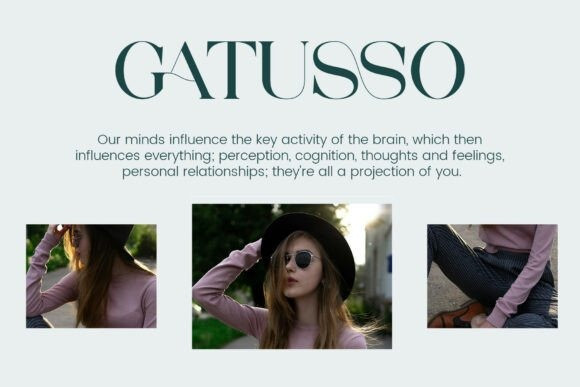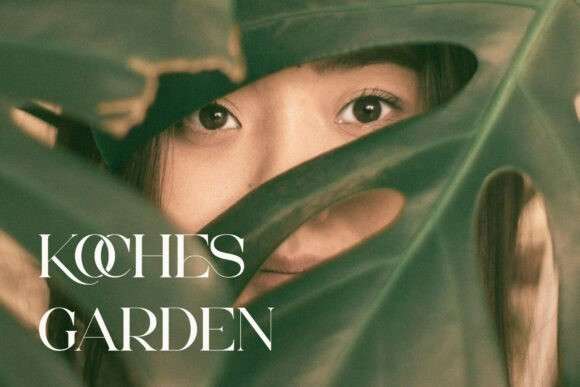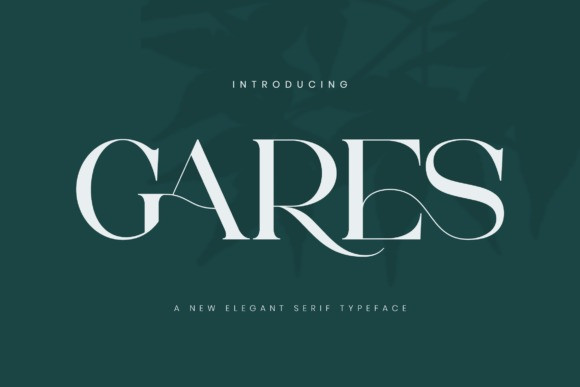
Gares Font
Gares Font is a bold and refined serif typeface with stylish ligatures and dynamic shapes. Its crisp lines and contemporary elegance make it a perfect fit for branding, high-fashion editorial spreads, packaging, and modern logo designs. Sophisticated yet sharp.